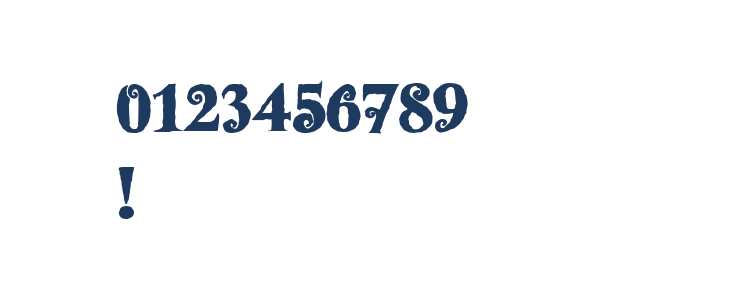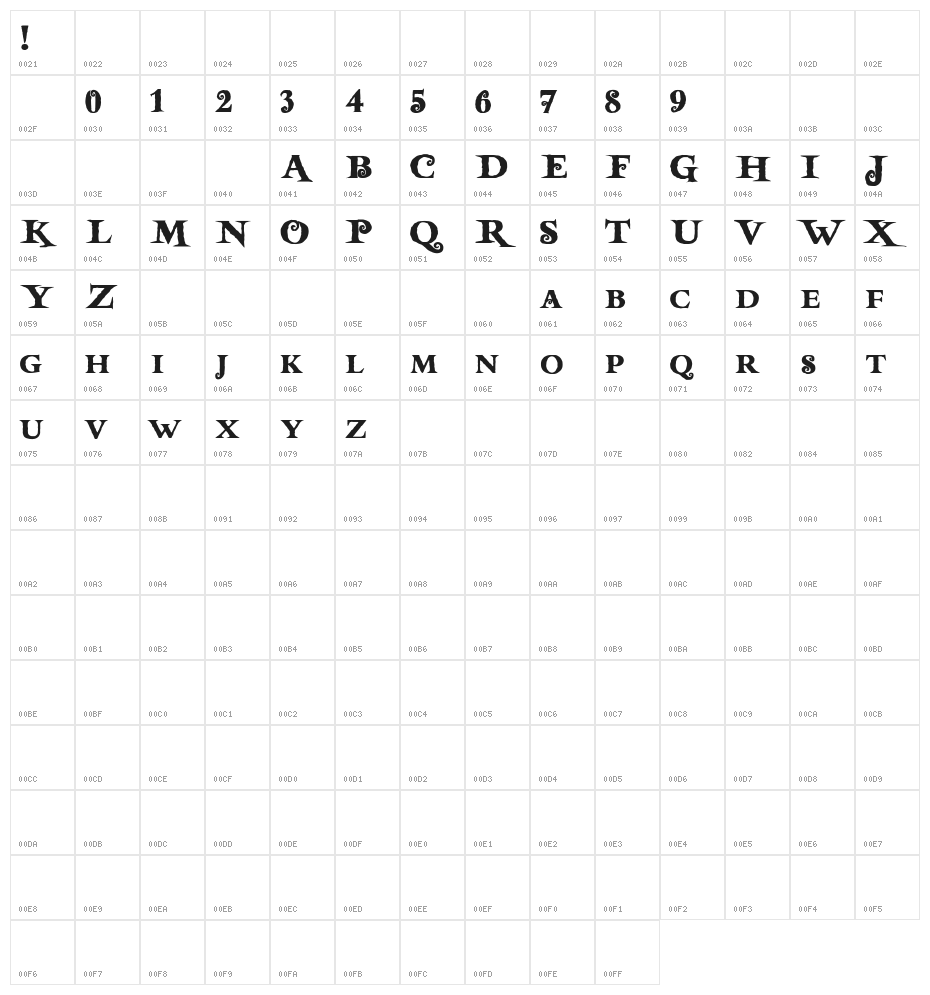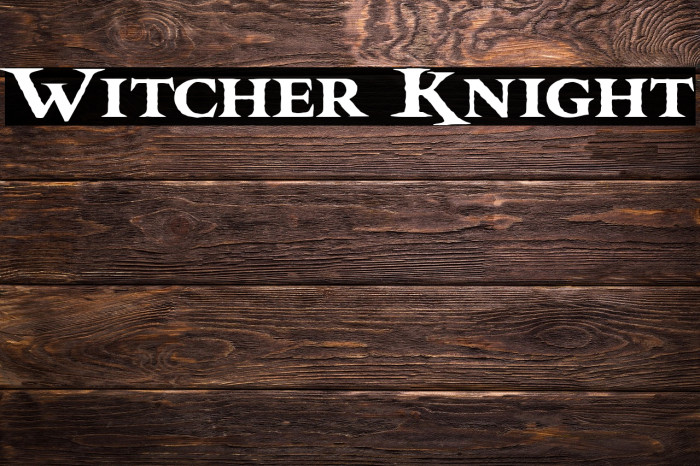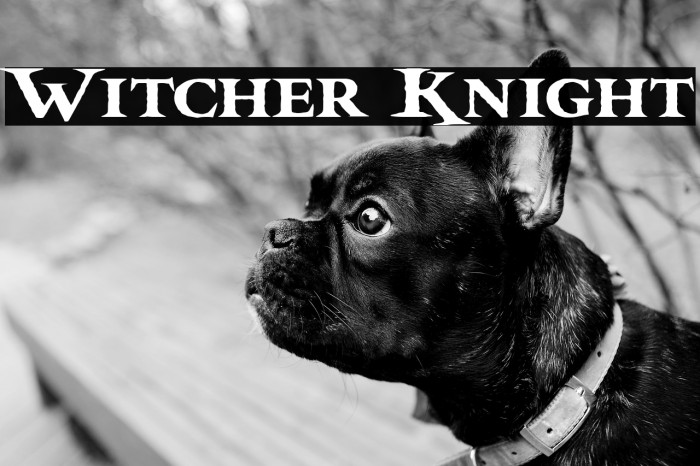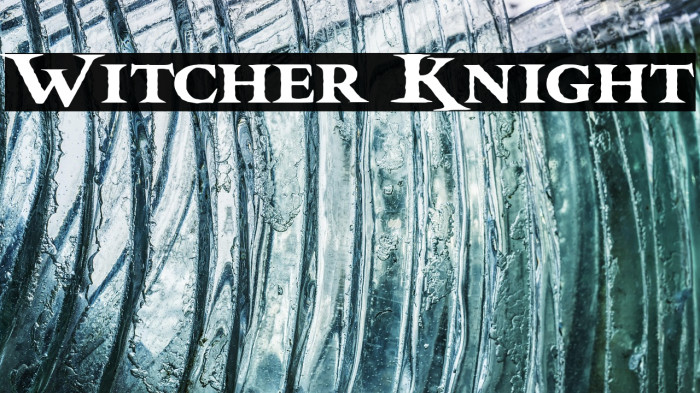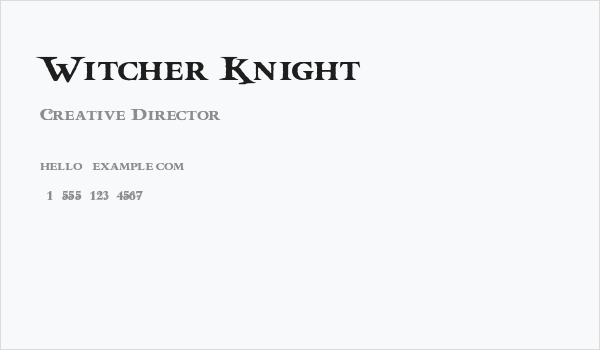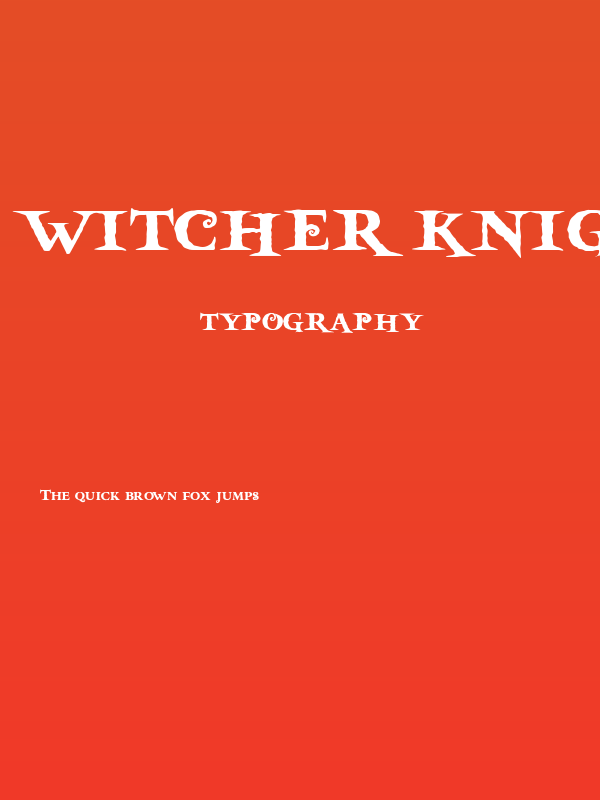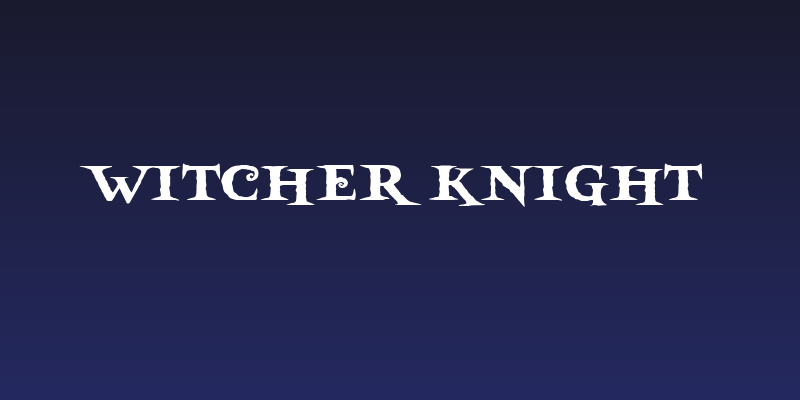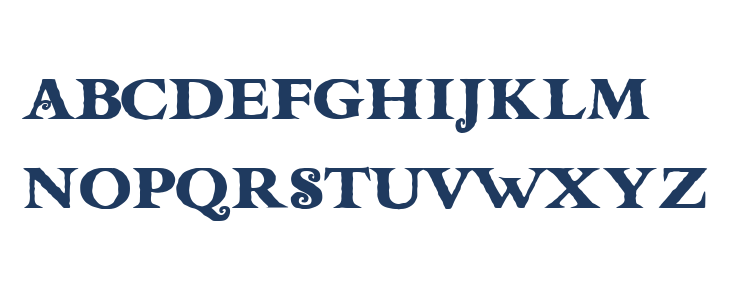
Witcher Knight Font
| Stile generale | Medieval, Decorative |
| Progetti proposti | Ideal for fantasy book covers, medieval-themed event posters, video game titles, and any project requiring a historical or mythical aesthetic. |